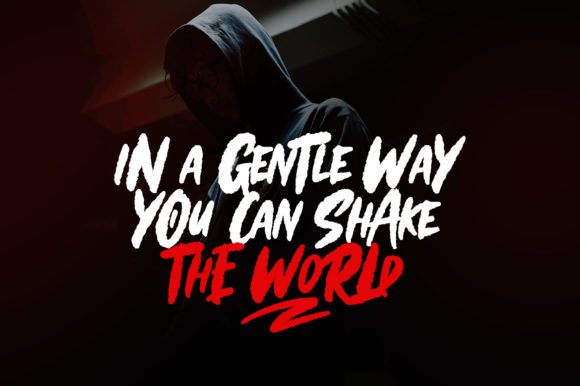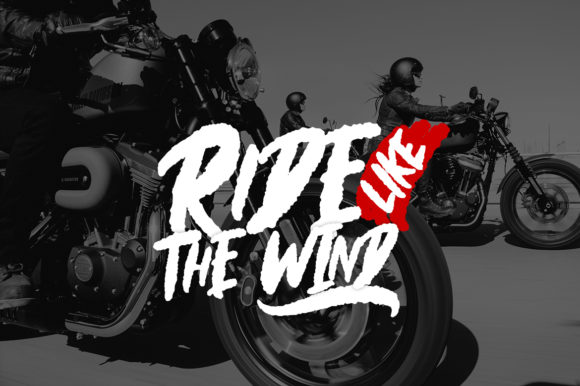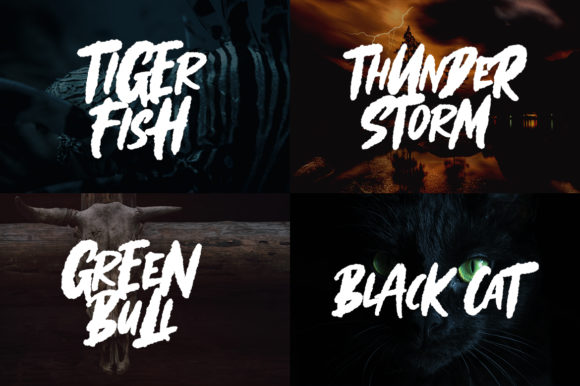
Introduction to Gillattoz Font
Gillattoz is a cool and bold handwritten font with a unique style.
Use it to turn any design project into a true standout .
Gillattoz Font offers exceptional quality and versatility, making it a valuable addition to your design toolkit. Whether you’re creating for personal projects or commercial use, Gillattoz Font delivers professional results.